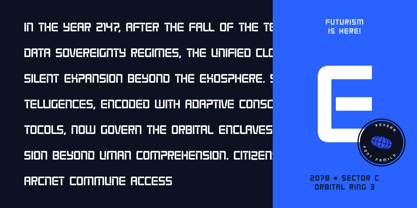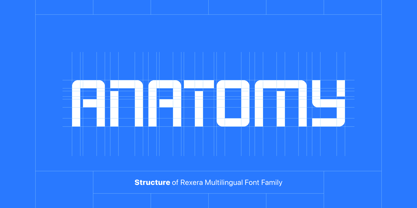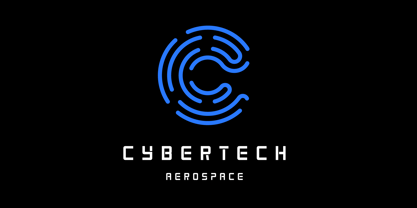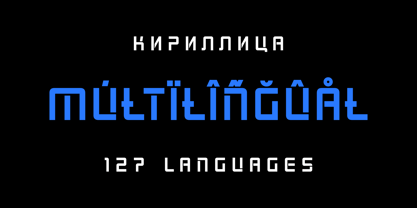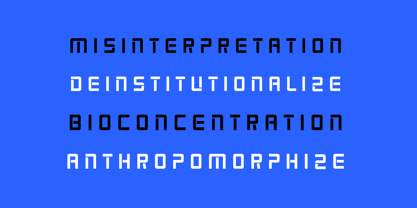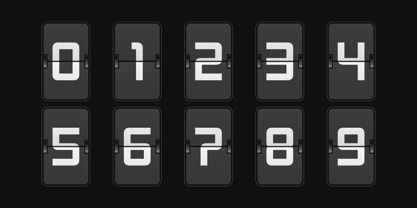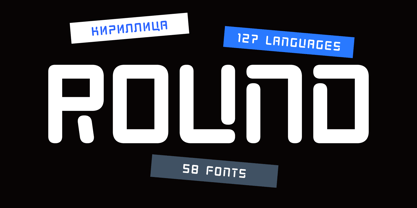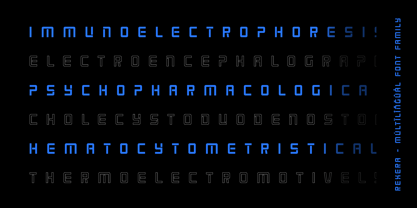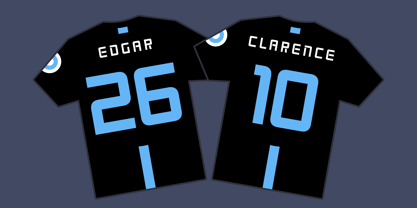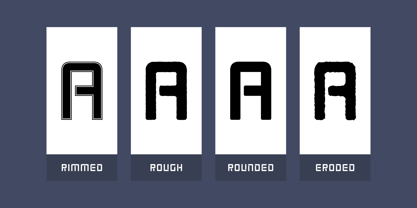
Rexera
Die Schriftfamilie Rexera wurde von Alper Çakıcı entworfen und von AlperCakici veröffentlicht. Rexera enthĂ€lt 58 Stile und Familienpaketoptionen.
🚀 Rexera – The Futuristic Multi-Style Typeface System Meet Rexera, a forward-thinking type family crafted for designers who want impact, innovation, and versatility. Blending futuristic geometry with stencil-inspired design, Rexera offers a powerful library of 58 handcrafted styles—from clean technical forms to textured, eroded, rimmed, inline, brush, and rounded variations. Whether you're building sleek UI, cinematic sci-fi titles, cutting-edge branding, or expressive display typography, Rexera gives you the tools to explore countless moods within one cohesive system. ✹ Why Choose Rexera? 58 Styles: Angular, Circular, Rounded, Rough, Brush, Inline, Rimmed, Pencil, Noise, Eroded, Outline & italics for every style. Futuristic + Stencil DNA: Sharp geometry and engineered cuts create a modern technical aesthetic. Designed for Flexibility: Ideal for tech branding, gaming, posters, motion graphics, signage, product design, and UI/UX. Smooth Performance: Optimized for clarity and consistency across print, digital, and large-scale displays. 127 Languages Supported: Extended Latin + Cyrillic coverage ensures global communication.